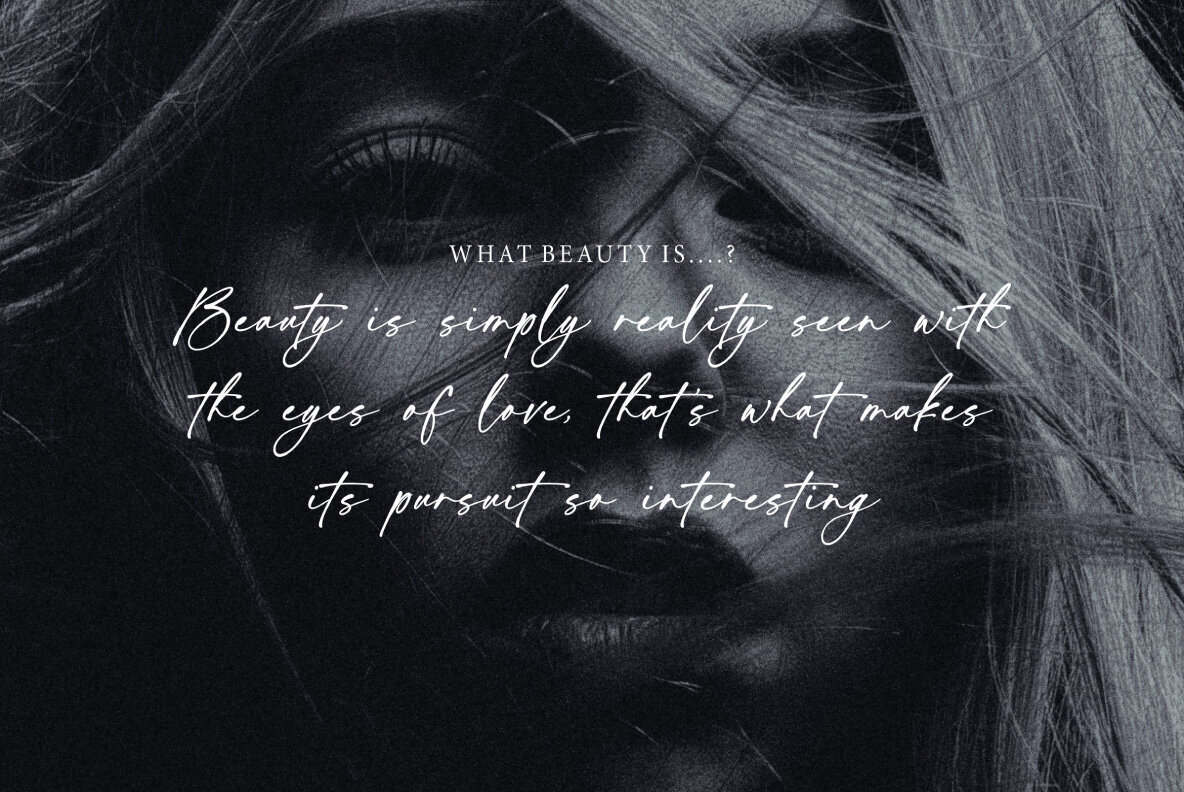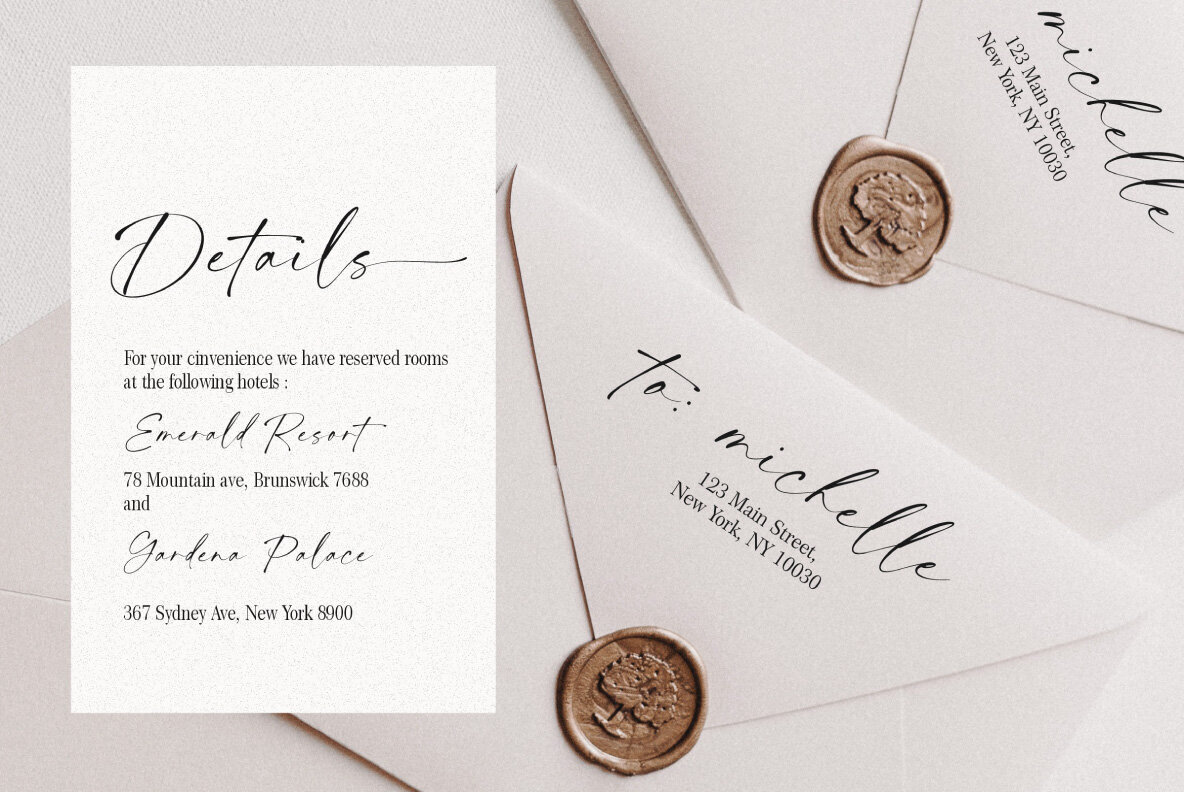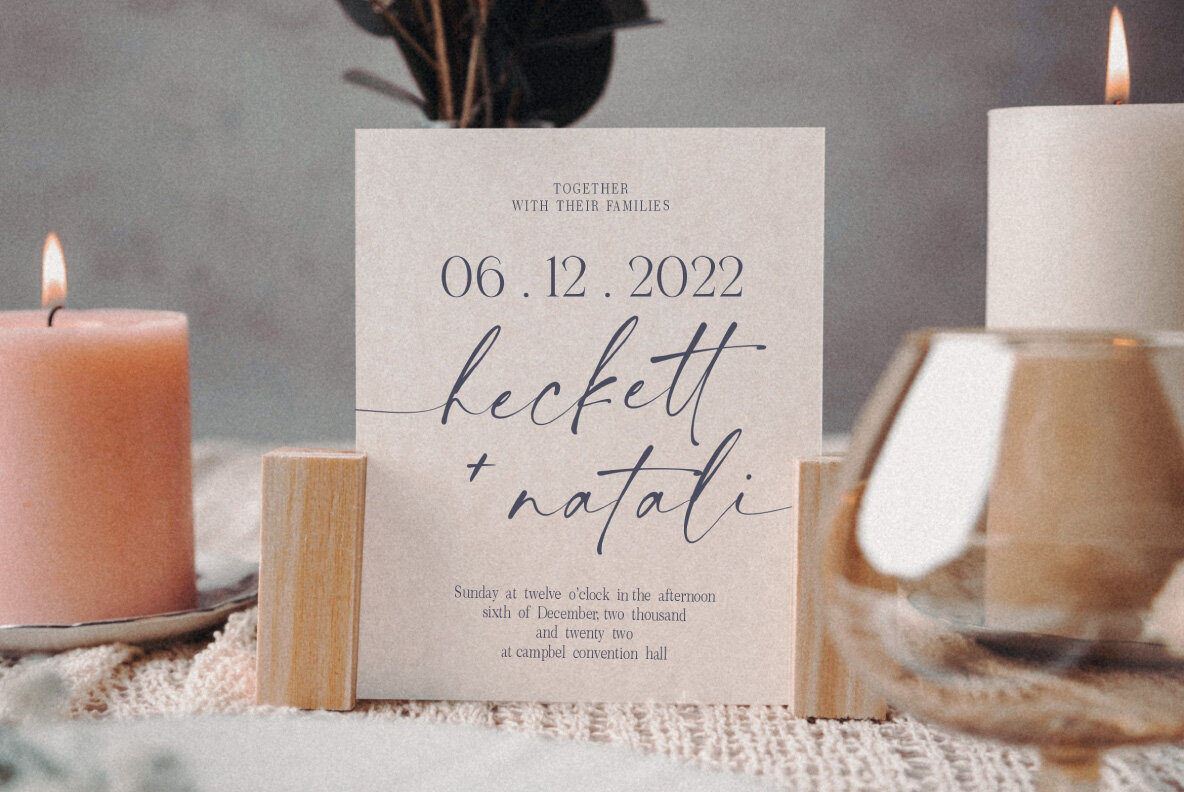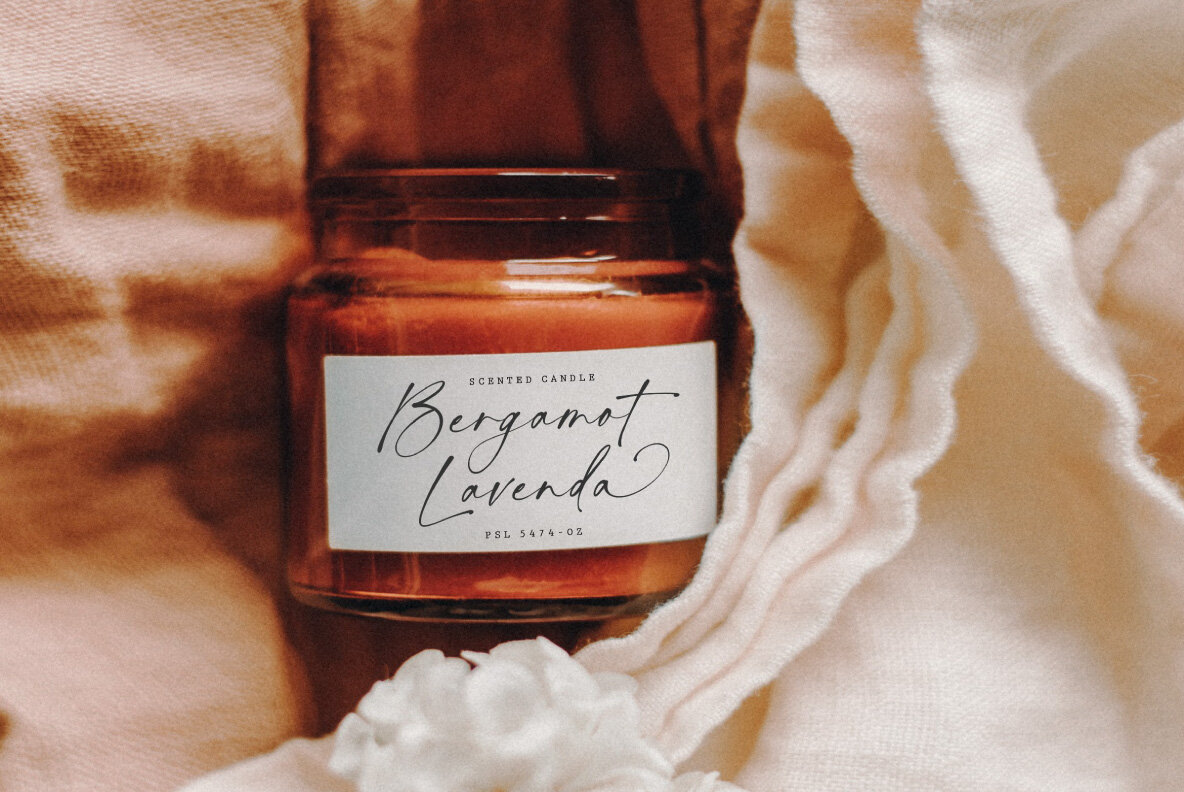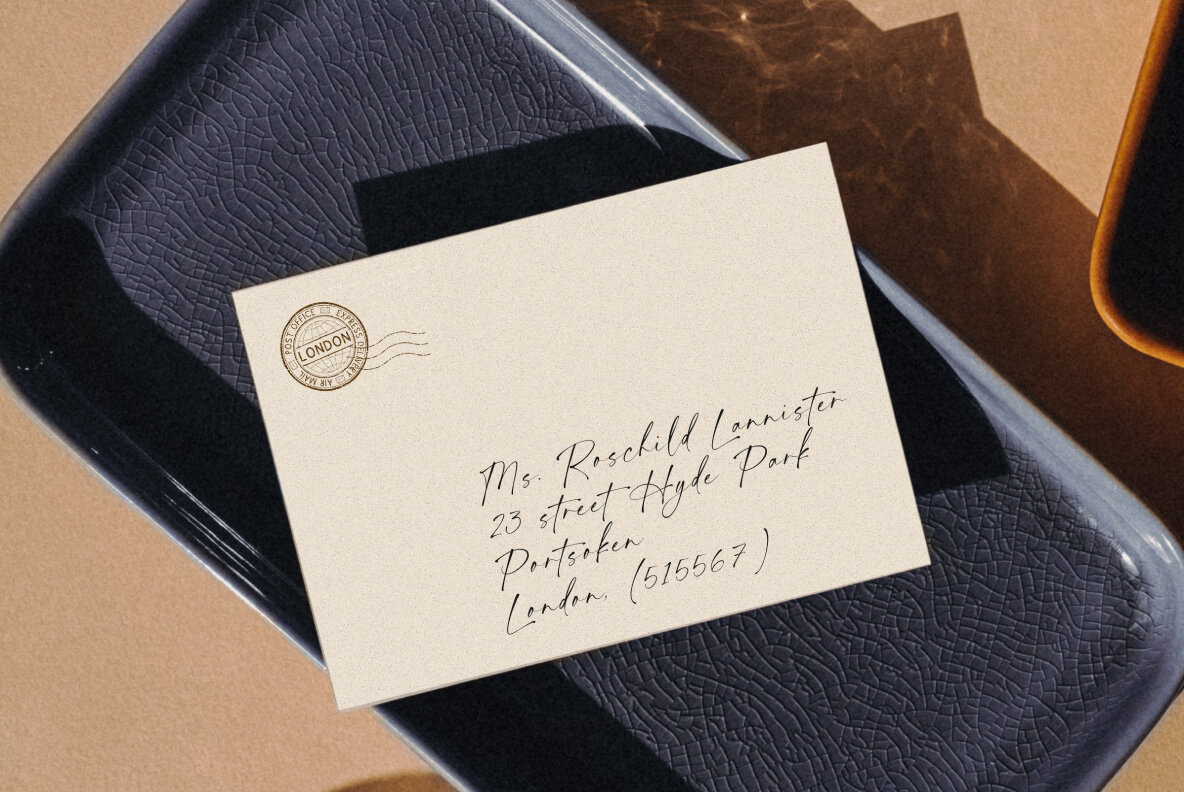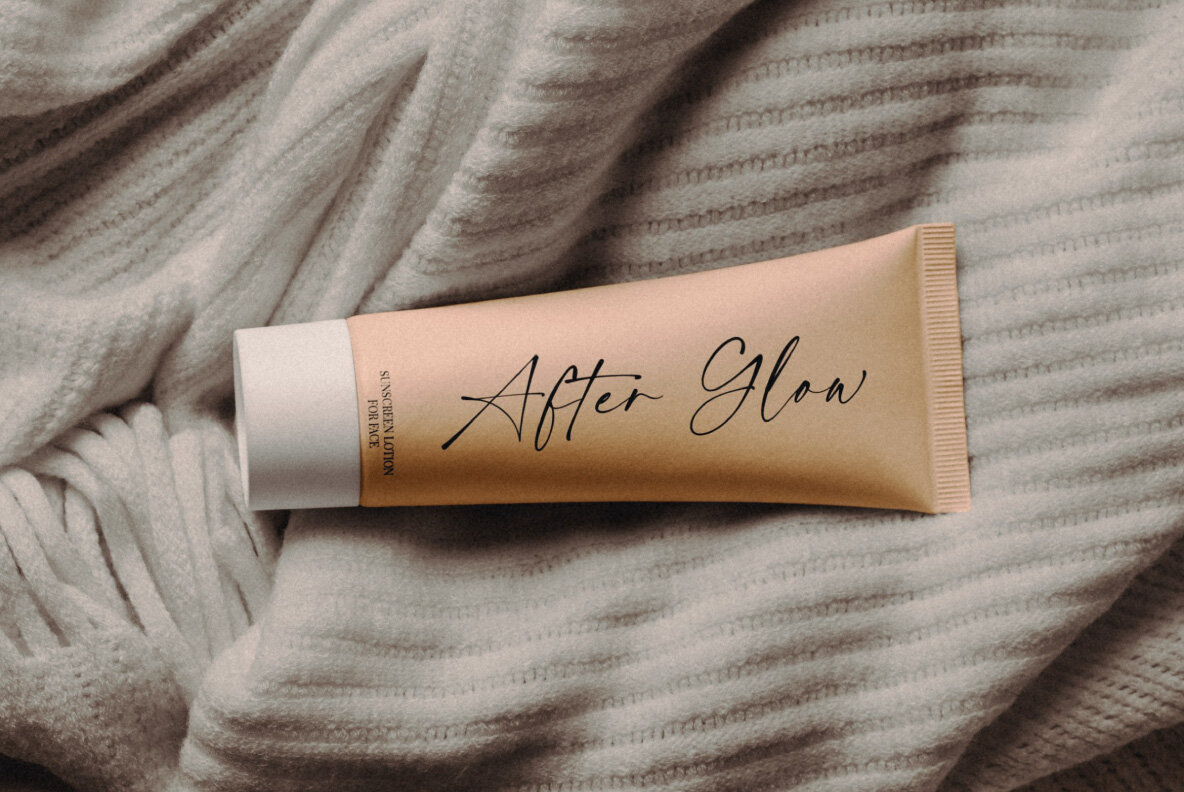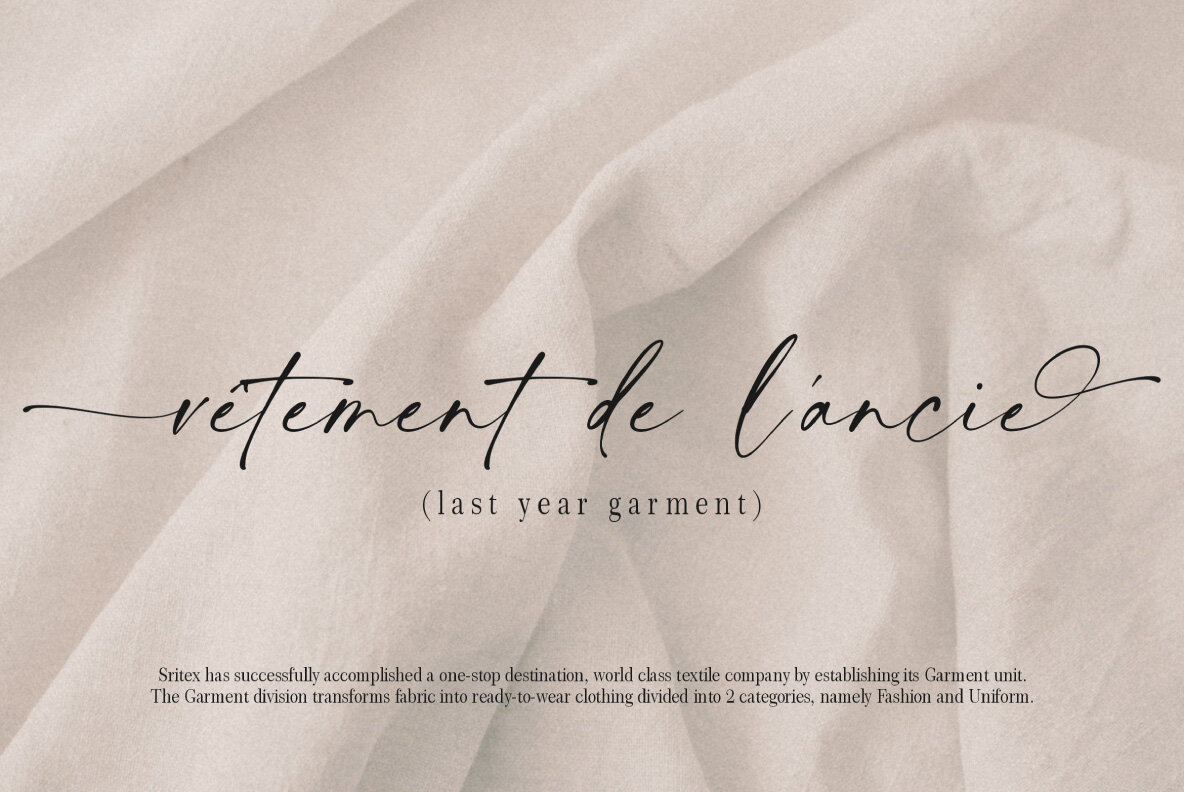
Twilight Darling Font
Twilight Darling Regular
Twilight Darling has an elegant and natural expression that is perfect for any design. A modern font with handwritten, unique swashes, use Twilight Darling to create everything from wedding invitations to logo designs.
- Ending Swashes & beginning swashes
- Numeral & Punctuation
- ligature